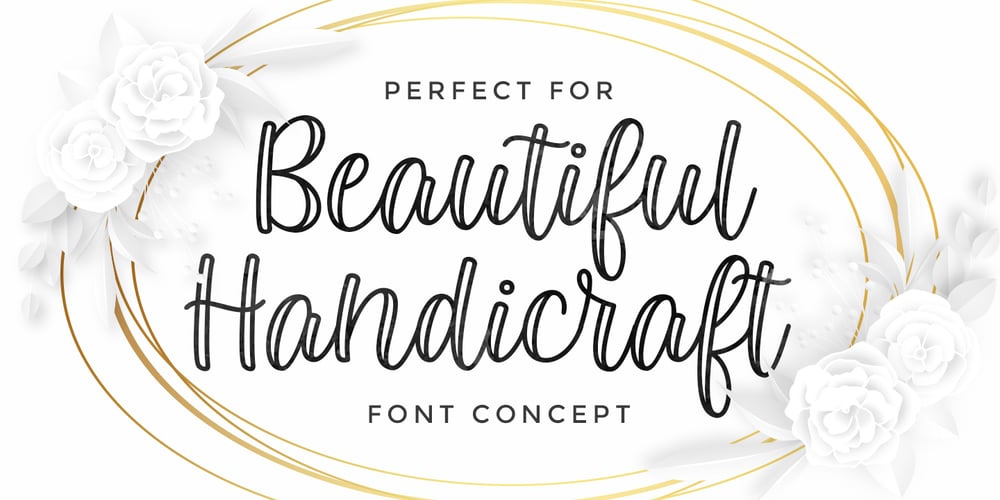
Kembara Cinta Outline Font Family was designed by Fajar Gunawan and published by Fargun Studio. Kembara Cinta Outline contains 1 styles and family package options. Kembara Cinta Outline is a new, fresh, and modern hand lettered font, decorative characters and a dancing baseline! So beautiful on handicrafts, greeting cards, branding materials, business cards, quotes, posters, and more.Features:Unique ligaturesStylistic setsBasic Latin A-Z and a-zNumbersInternational Symbols includedPunctuationNeed help? If you need help or advice, please contact me by e-mail “fargunstudio@gmail.com”Thank you for your purchase